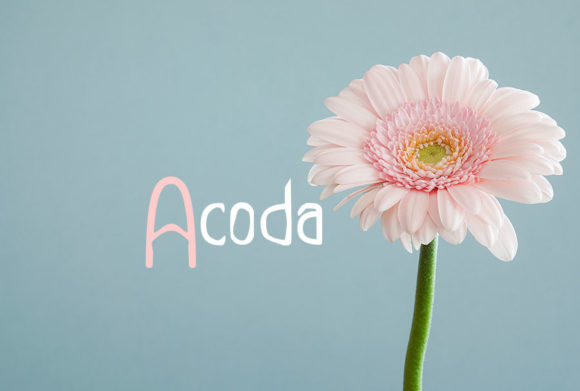
Behold Acoda, the Display Font that Unleashes Creativity
In a world of digital expressions, typography reigns supreme, shaping the visual landscapes of websites, branding, and countless designs. Amidst the vast array of fonts, Acoda stands tall as a beacon of simplicity and coolness, ready to transform your creative visions into stunning realities.
With its roots firmly planted in the realm of display fonts, Acoda exudes a charm that defies convention. Its meticulously crafted characters dance with elegance, possessing a unique touch that elevates any project. Whether you're crafting web designs, breathing life into business cards, or seeking to leave an indelible mark on any creative endeavor, Acoda is your steadfast companion.
Beyond its aesthetic appeal, Acoda is a font of versatility, effortlessly adapting to a myriad of design scenarios. Its innate ability to harmonize with various styles and themes makes it a font for all seasons, capable of weaving its magic into any creative tapestry. From the clean and minimalist to the ornate and opulent, Acoda possesses the chameleon-like ability to blend seamlessly, enhancing your designs with a touch of sophistication and grace.
But Acoda's allure extends far beyond its technical prowess. It possesses an emotional resonance that captivates the hearts and minds of users. Its simple yet striking forms evoke a sense of nostalgia, harkening back to simpler times when creativity flowed freely. Acoda's presence in your designs acts as a subtle reminder to embrace the beauty of simplicity, to let your imagination soar without the constraints of complexity.
In a world awash with visual clutter, Acoda emerges as an oasis of clarity and focus, a font that invites users to pause, to truly appreciate the artistry of typography. Its unassuming nature allows your content to take center stage, ensuring that your message shines through with unparalleled clarity and impact.
So, dear creative explorers, embrace the allure of Acoda, the display font that ignites your imagination and empowers you to craft designs that transcend the ordinary. Let its simplicity guide you, its versatility inspire you, and its emotional depth touch the hearts of your audience. Acoda awaits your creative touch, ready to transform your visions into masterpieces that leave a lasting impression.